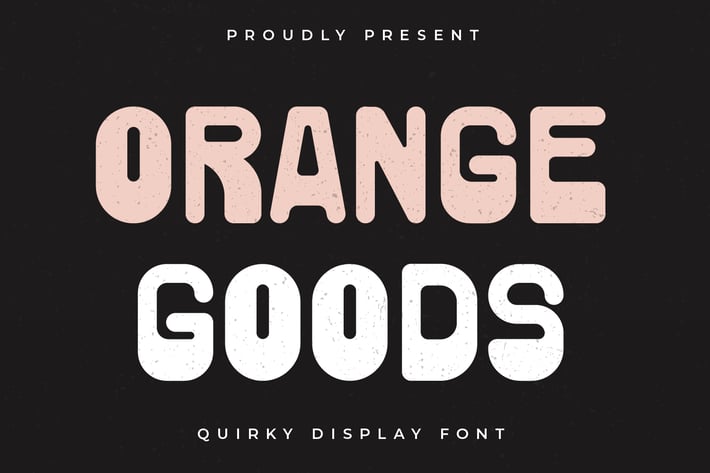
Orange Goods - Quirky Display Font
Introducing Orange Goods - Quirky Display Font
Orange Goods is a playful, cool and modern display font. It embodies fun, uniqueness and authenticity. This dazzling display font will turn any creative idea into a standout!